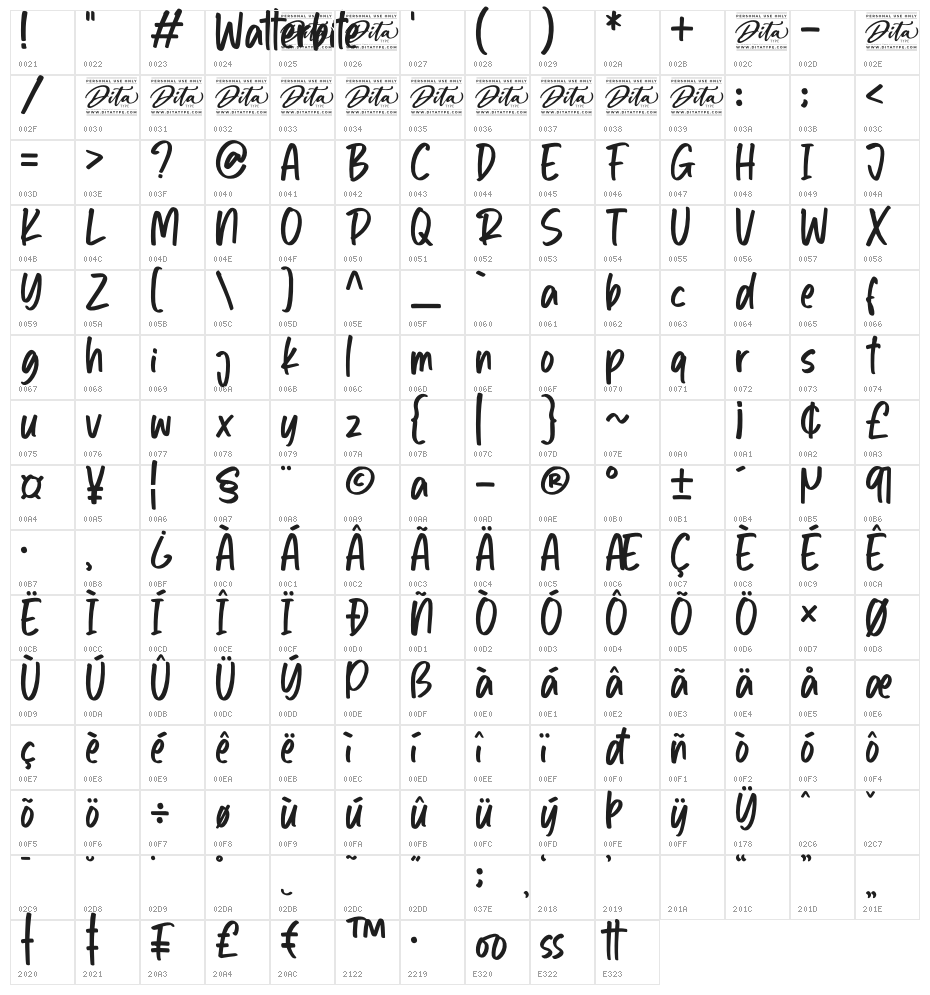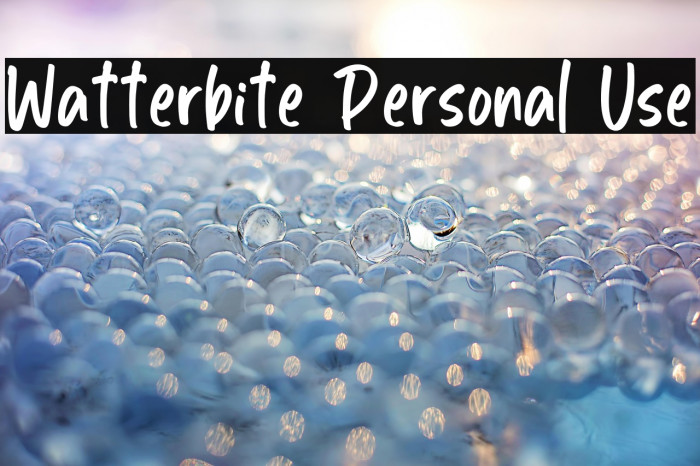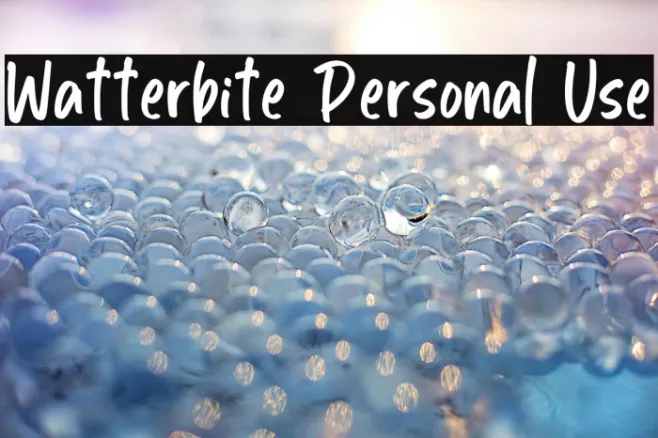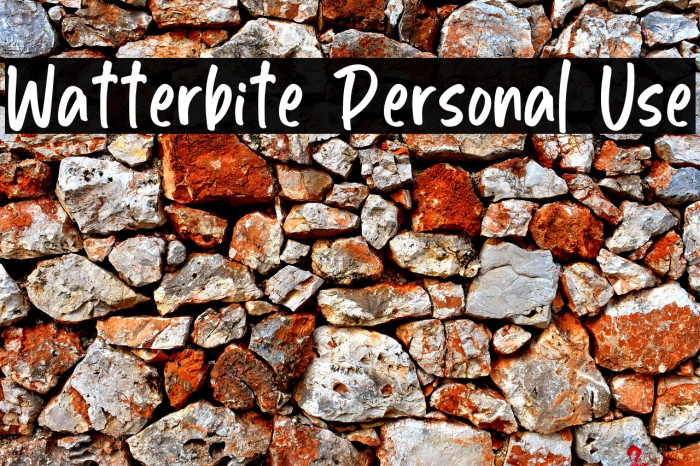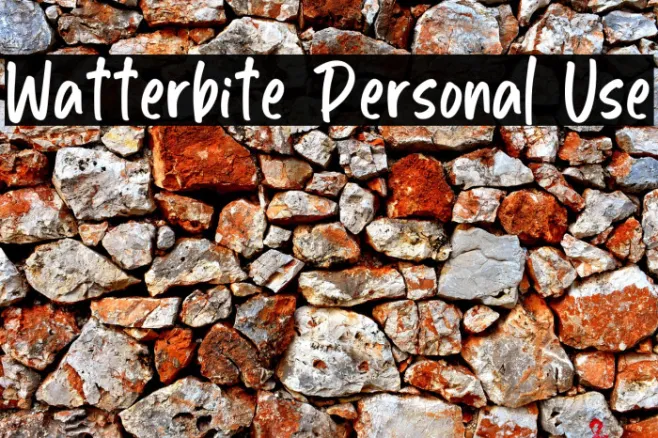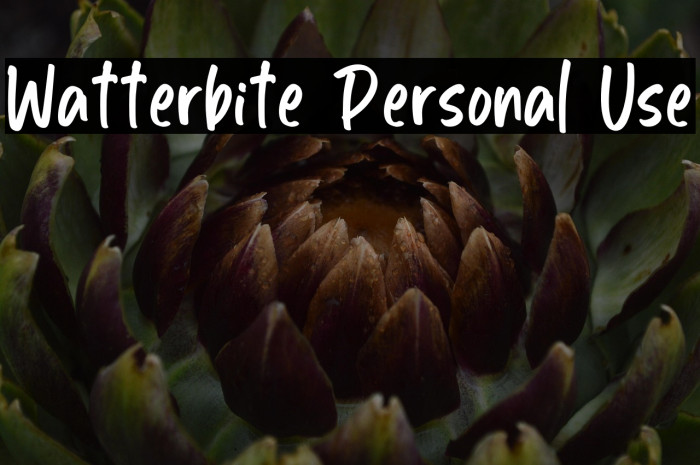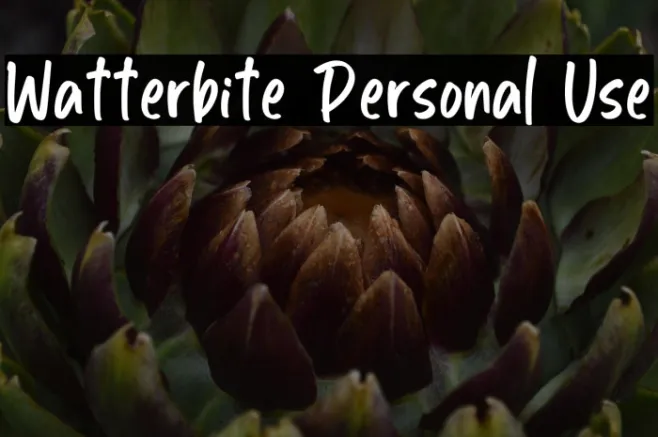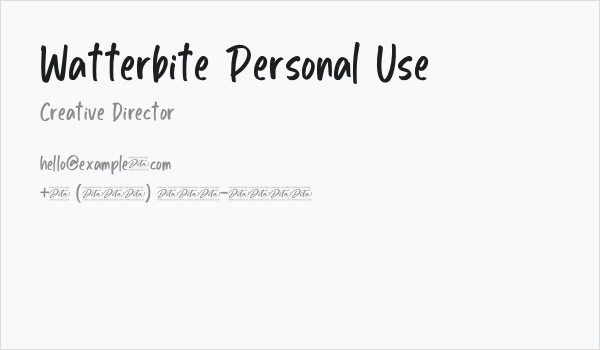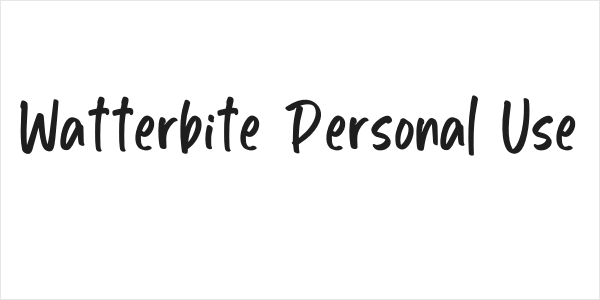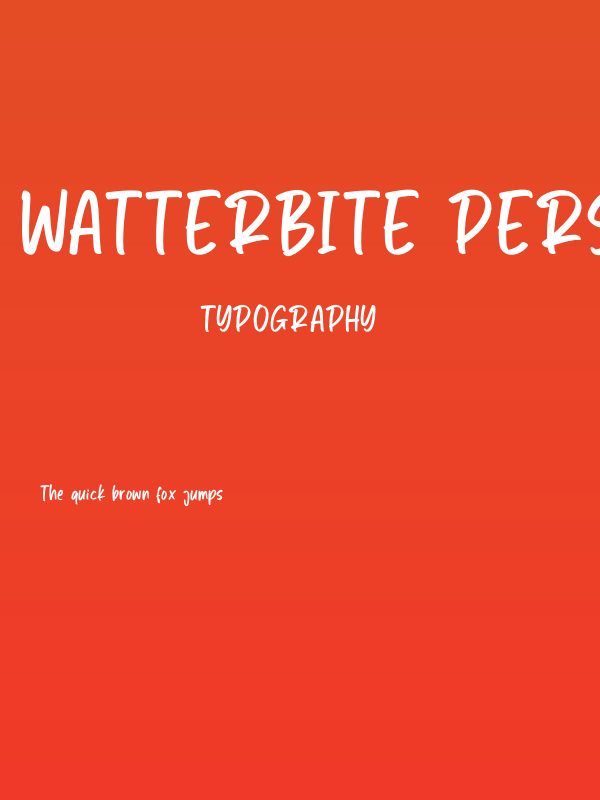
Watterbite Personal Use Font
Watterbite Personal Use Description
This font features a bold, handwritten style with a playful and energetic appearance. The letters are slightly slanted, giving a casual and informal feel. The strokes are thick and consistent, providing a strong presence on the page. The uppercase and lowercase letters maintain a cohesive look, with rounded edges and a smooth flow. The numbers and special characters are designed to match the overall aesthetic, ensuring versatility in various design contexts. This font is ideal for projects that require a personal touch, such as invitations, posters, and social media graphics.
| Proposed Projects | Ideal for invitations, posters, social media graphics, and branding materials. |